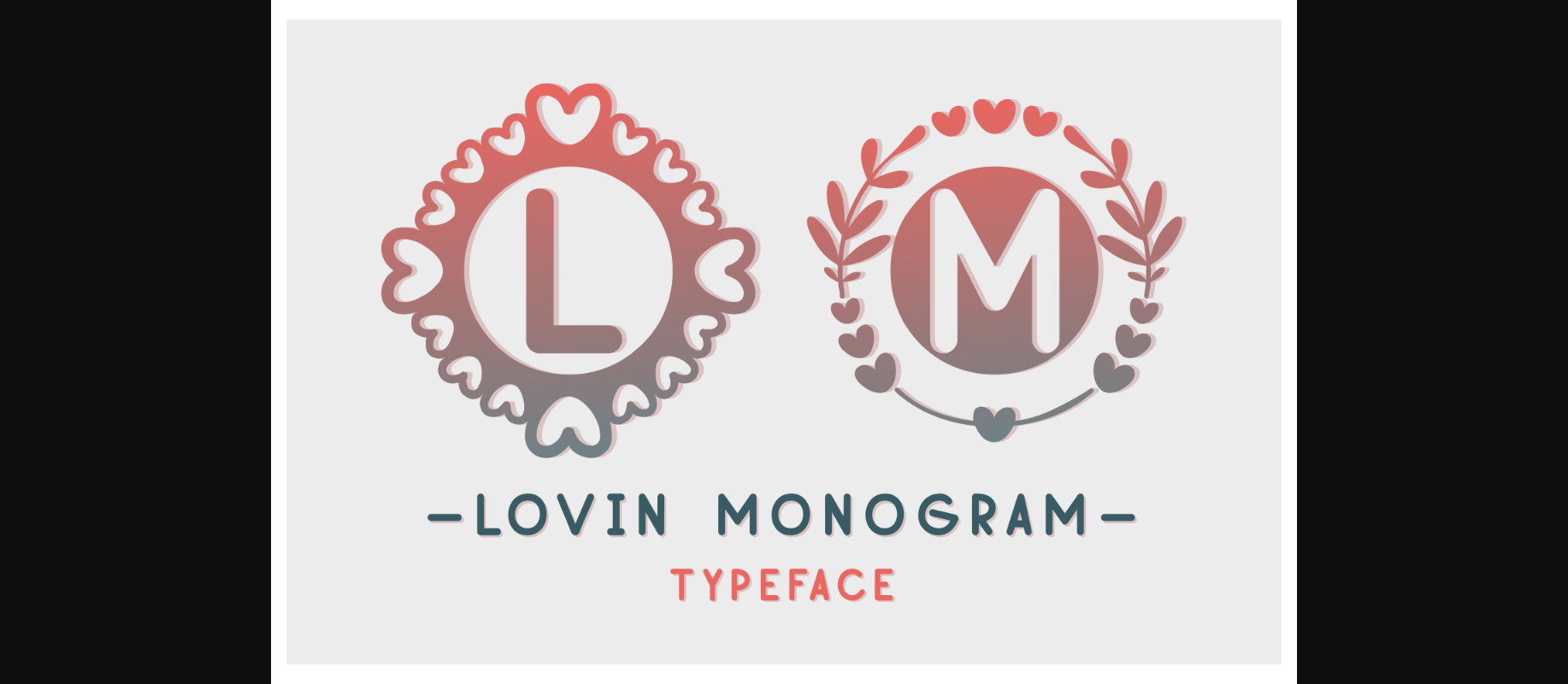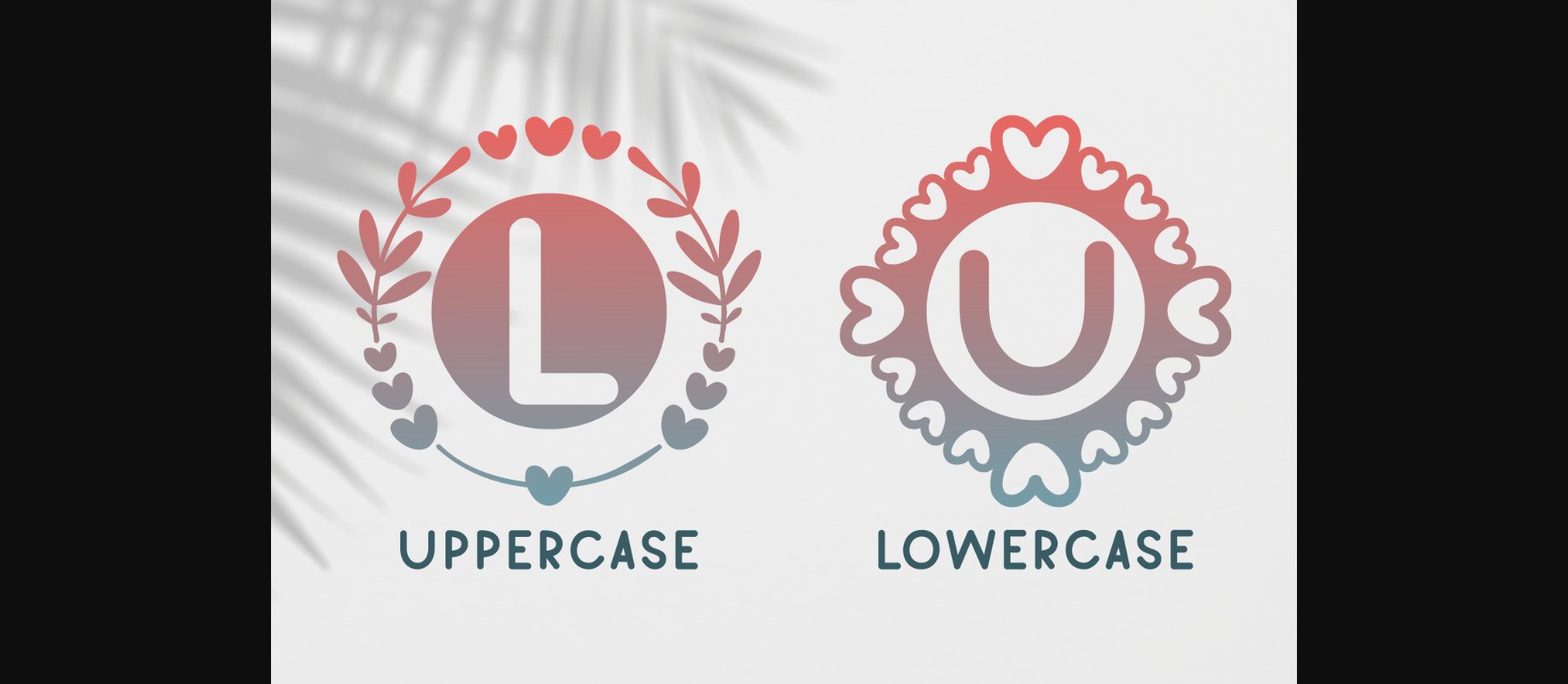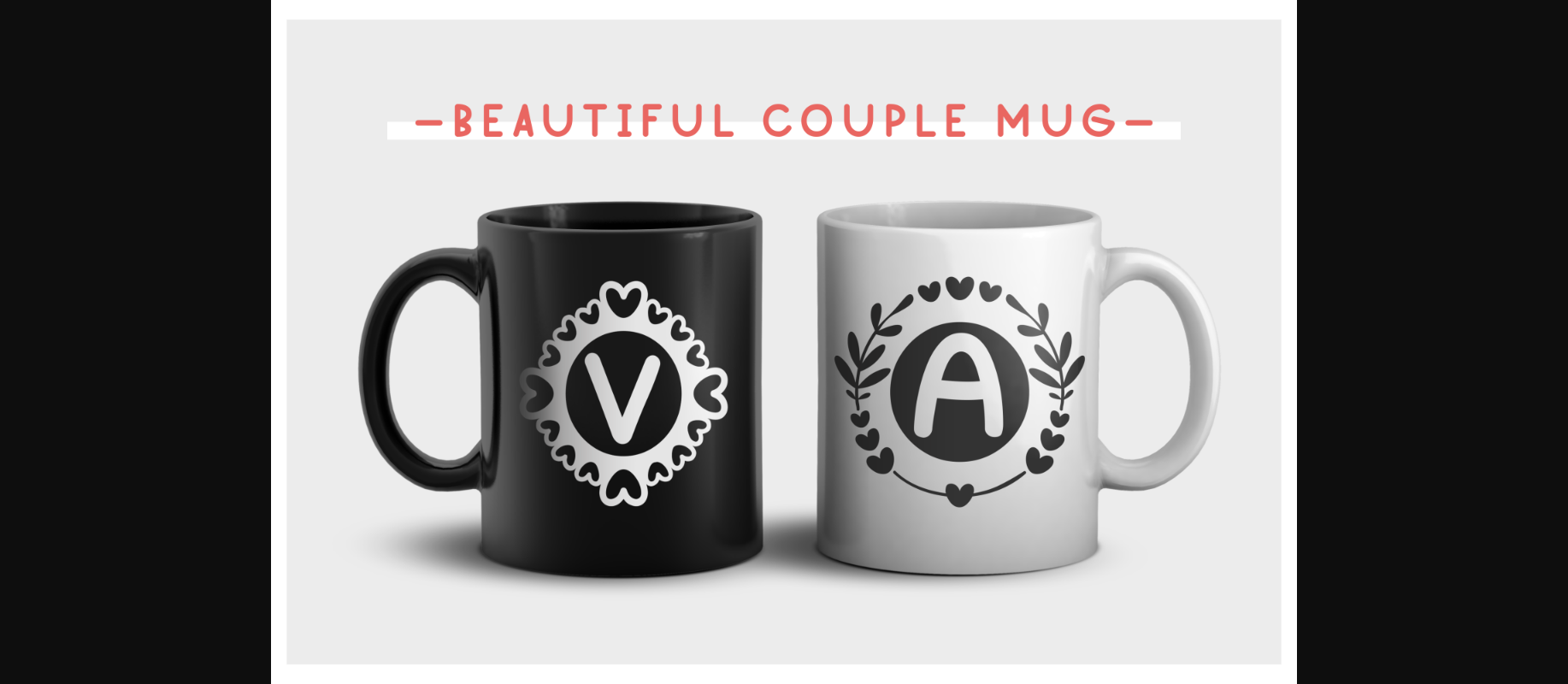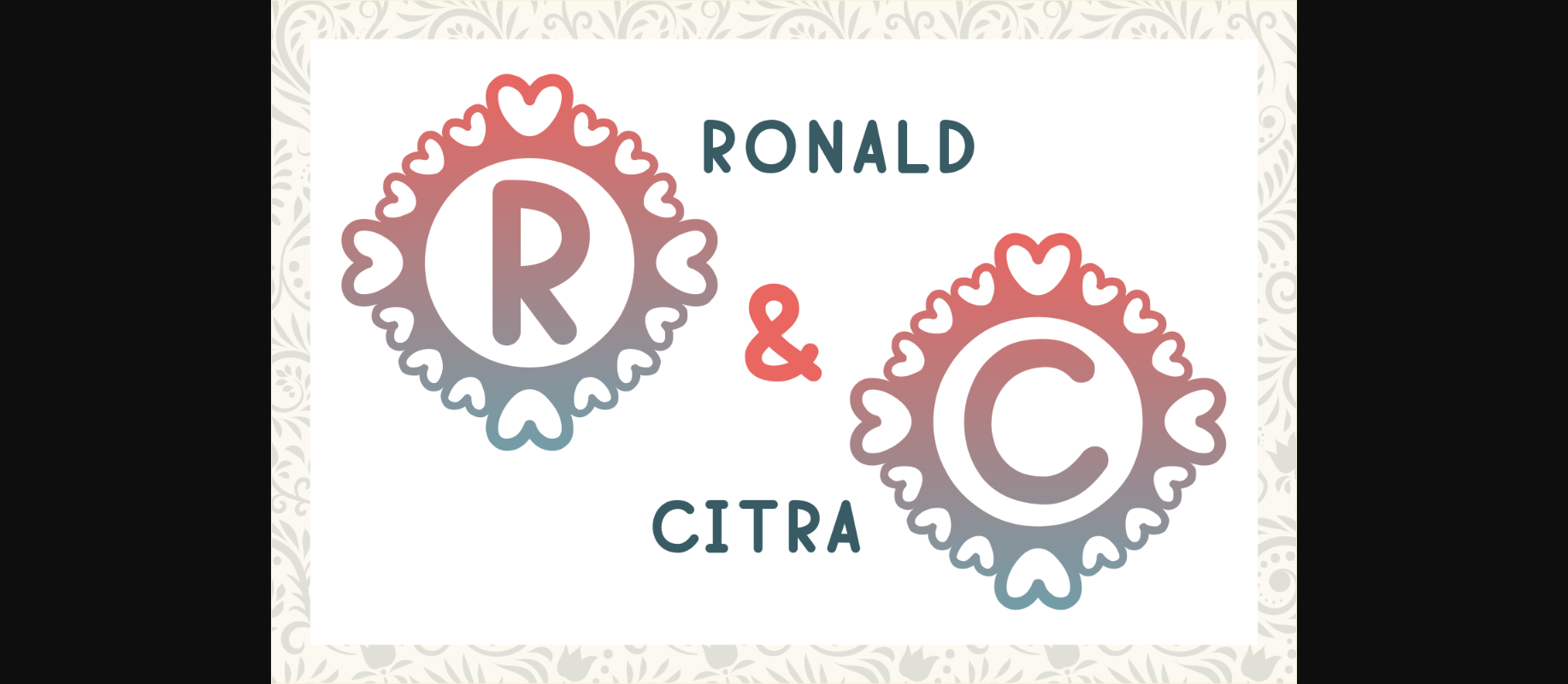
HomeDecorative FontsLovin Font Decorative Fonts Lovin Font FacebookXPinterestWhatsApp 1 of 6 ... Lovin Font Poster 2... Lovin Font Poster 3... Lovin Font Poster 4... Lovin Font Poster 5... Lovin Font Poster 6... About Lovin Font Lovin is a romantic and highly detailed decorative font. Fall for its ravishing style and use it to create gorgeous wedding invitations, beautiful stationary art, eye-catching social media posts, and much more! DOWNLOAD NOW People also explored Line Ego Font Happy New Year Font Aurix Font Hopipolla Font Halfmoon Font Crystal Dust Font Enwicken Loved Font Zeuty Font 396 0 TagsLovinLovin Font Previous articleHearts FontNext articleAntonio Split Monogram Font LEAVE A REPLY Cancel reply Comment: Please enter your comment! Name:* Please enter your name here Email:* You have entered an incorrect email address! Please enter your email address here Website: Save my name, email, and website in this browser for the next time I comment. Personal Use Free Astercla Personal Use Free Read more about this font Madison Script Personal Use Free Read more about this font Dear Monita Personal Use Free Read more about this font Neuropol Personal Use Free Read more about this font BLOG How to Cut Any Font on Cricut: Convert a Font to SVG (Free) Turn any font into a clean SVG so it cuts crisp on Cricut - a quick 3-step workflow using a free font-to-SVG tool. Fonts That Capture the Spirit of New York City Top 10 Handwritten Fonts That Elevate Your Designs Using Fonts in Digital Marketing: Tips to Strengthen Your Brand Identity